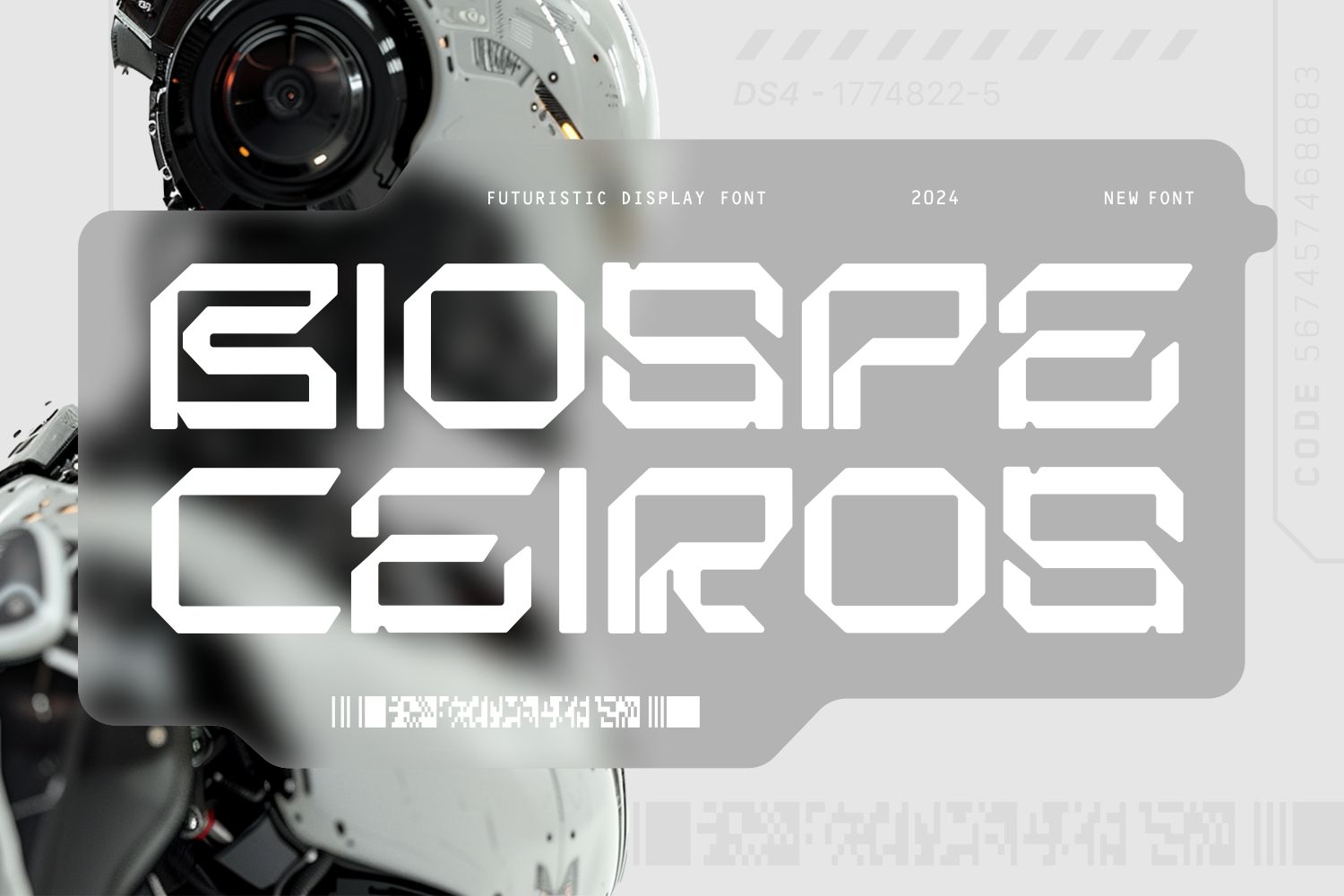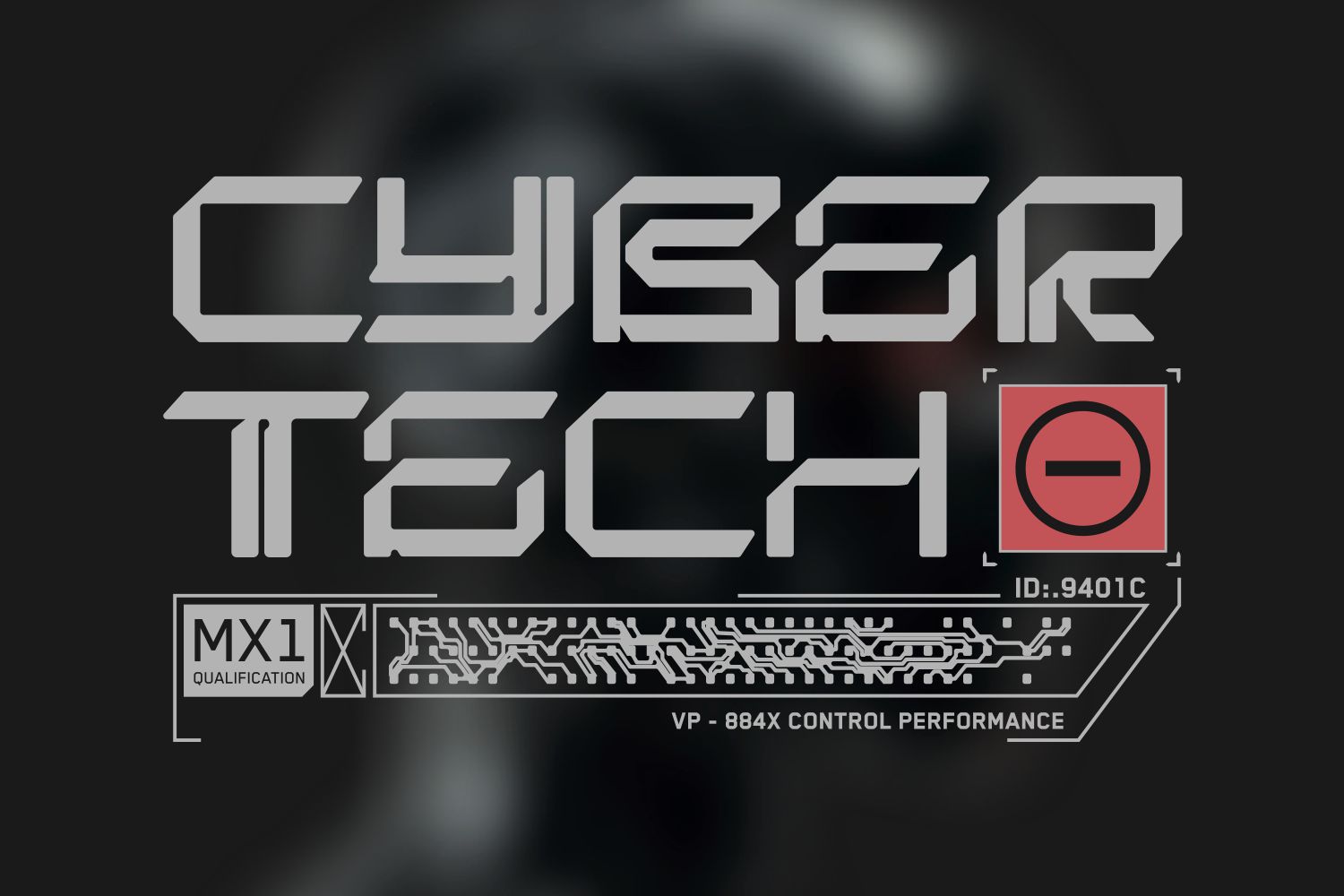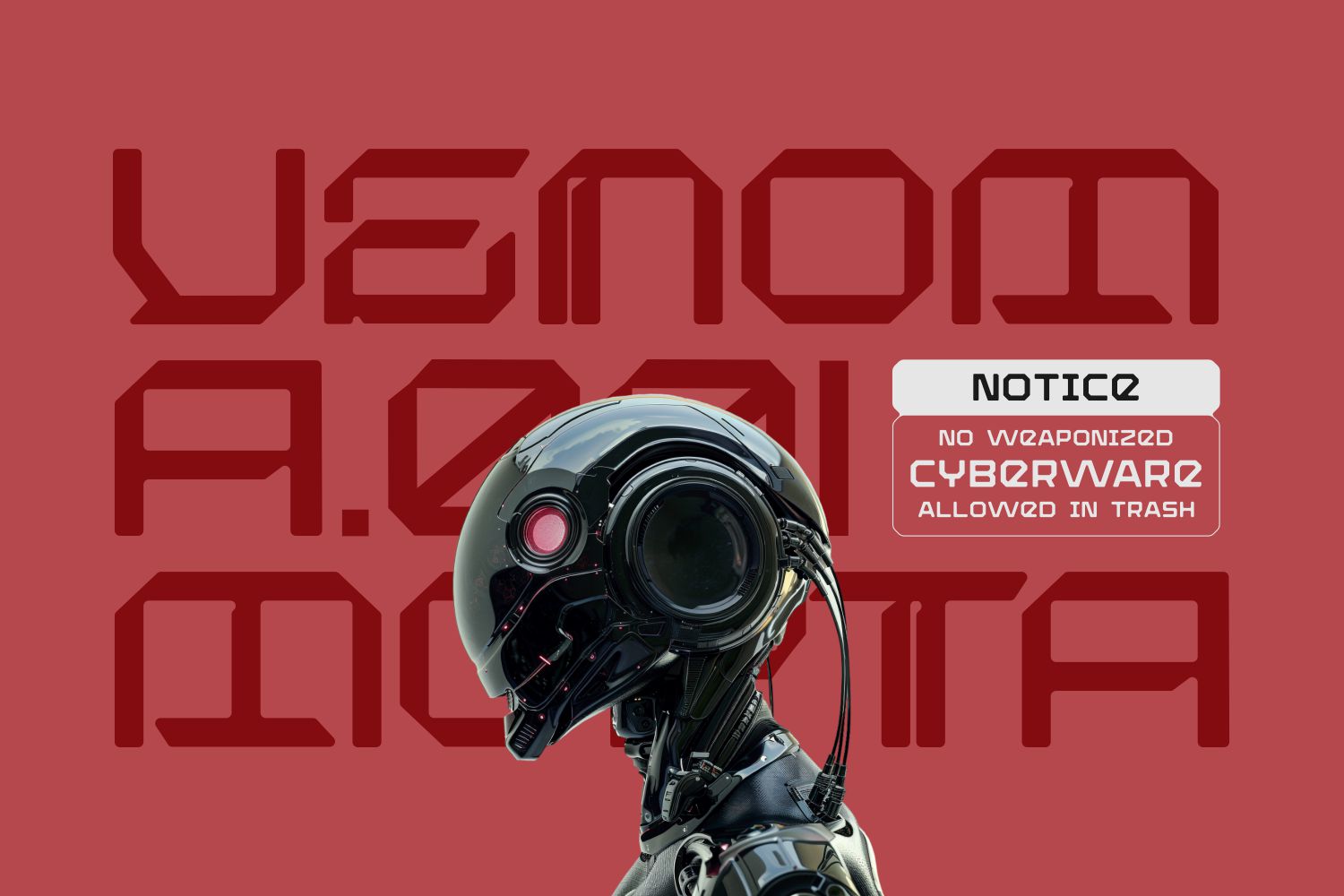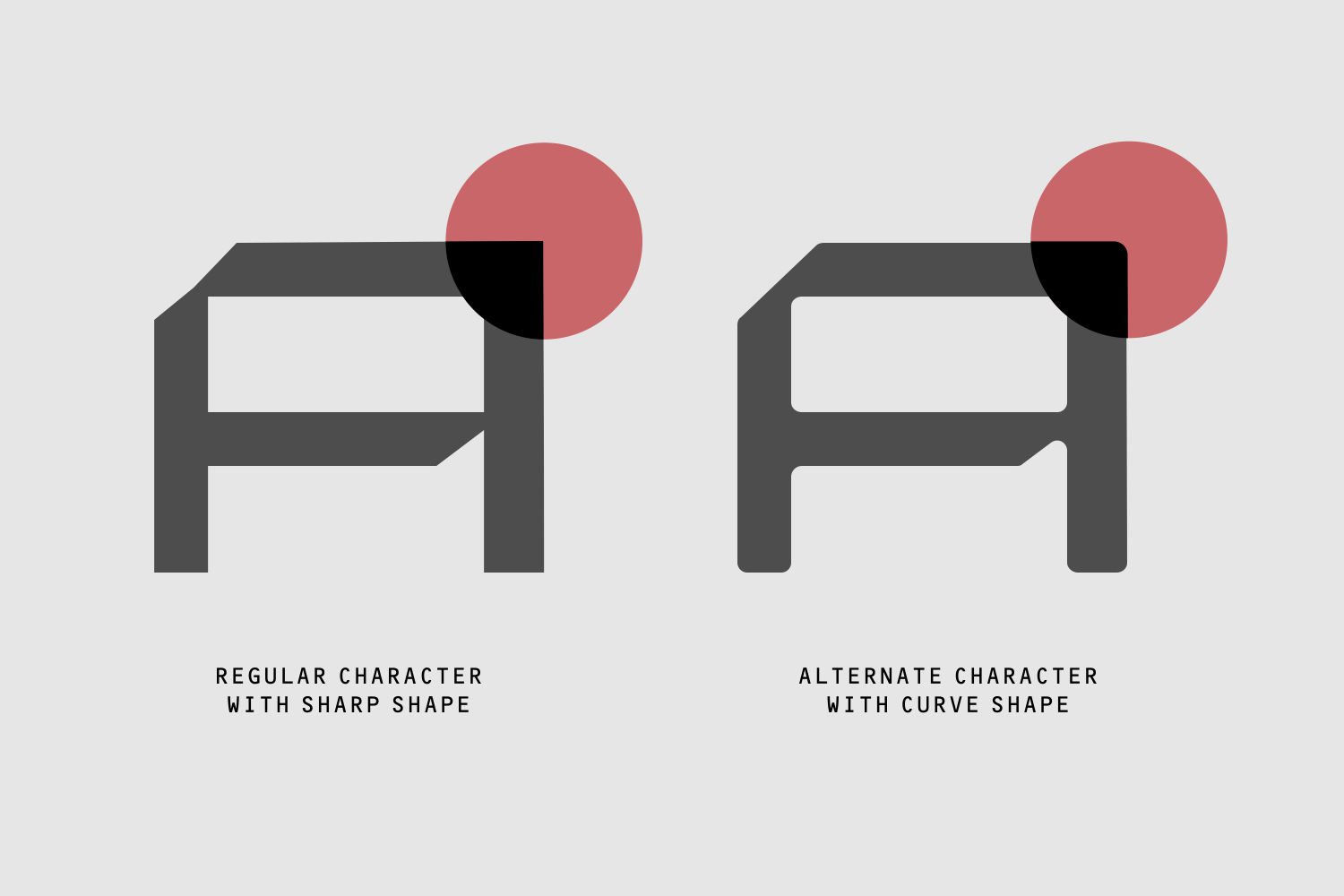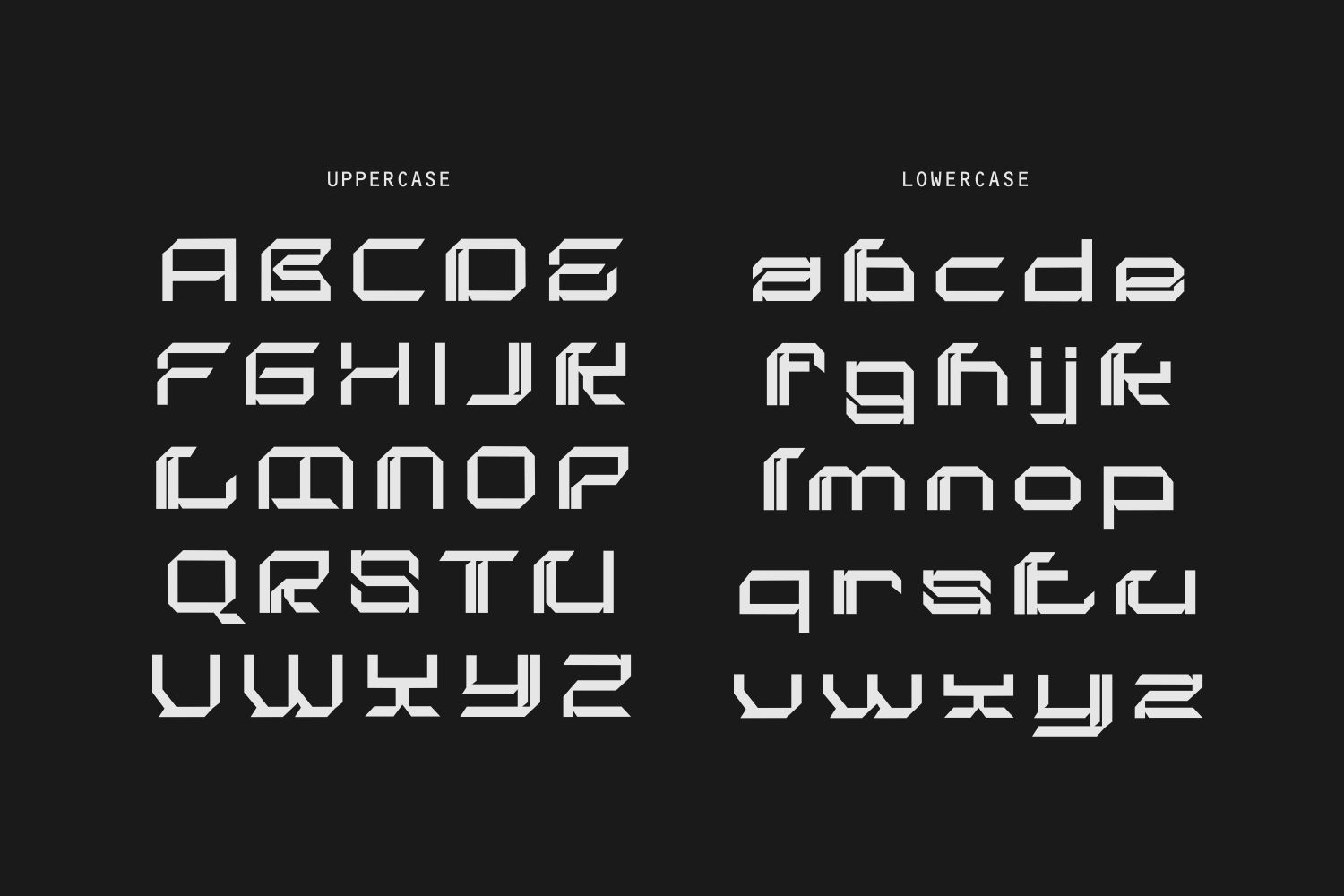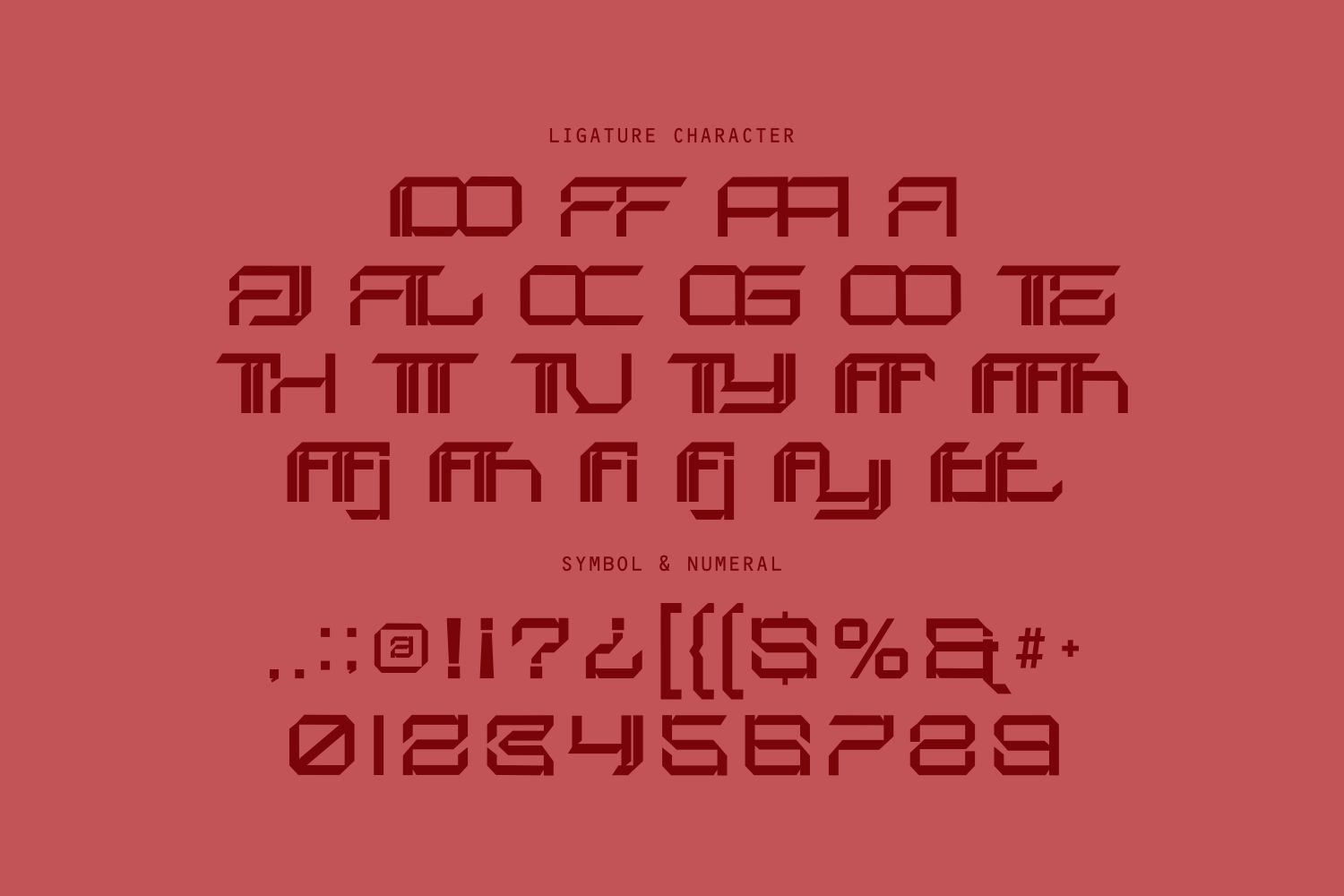
Biospe Ceiros is a futuristic display font designed with bold geometric forms, sharp cuts, and a strong techno-industrial aesthetic. Its angular strokes and mechanical precision evoke the feel of high-tech interfaces, cybernetic systems, and advanced robotics. The font’s distinctive character shapes make it ideal for sci-fi posters, game titles, tech branding, and cinematic visuals that demand a modern, cutting-edge presence. With uppercase, lowercase, numerals, symbols, and an array of ligatures, it offers both versatility and visual impact for creative projects.
Beyond its commanding regular set, Biospe Ceiros includes alternate characters with curved elements, giving designers the flexibility to create softer or more fluid variations without losing its futuristic edge. This duality allows it to adapt seamlessly to a variety of themes—whether you’re aiming for a sleek digital UI or a gritty cyberpunk dystopia. Every letterform is crafted to stand out in large-scale displays, making it perfect for identity work, event promotions, and technology-driven designs.
Biospe Ceiros